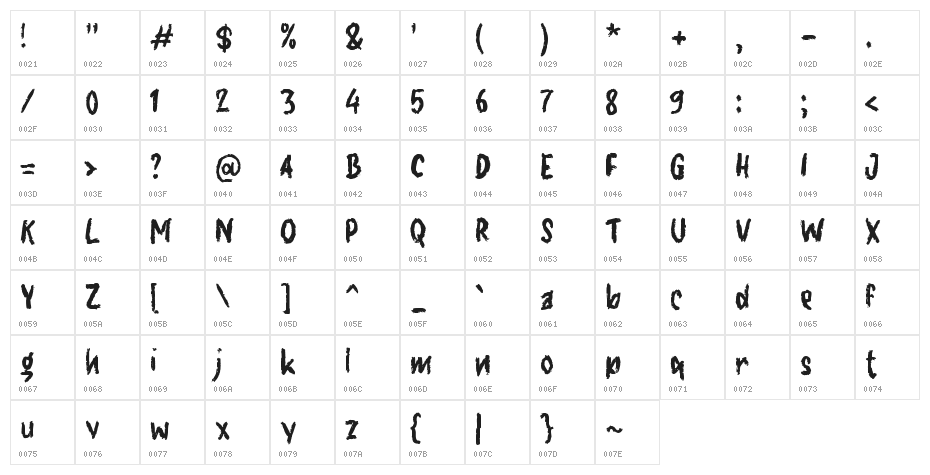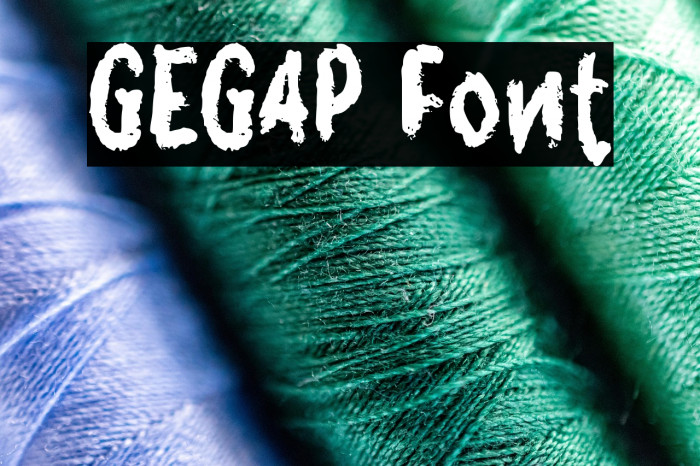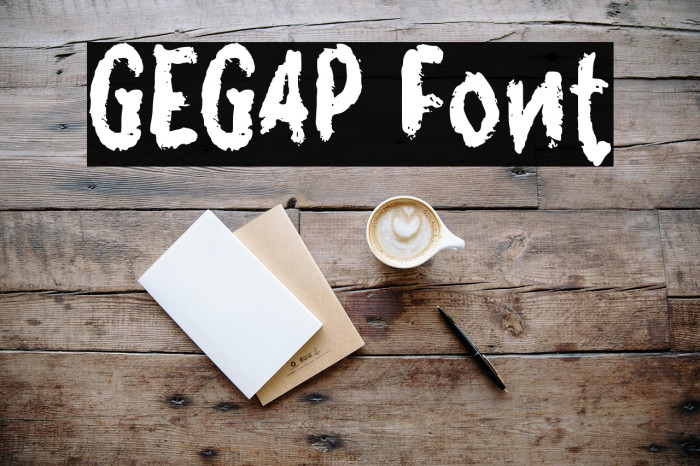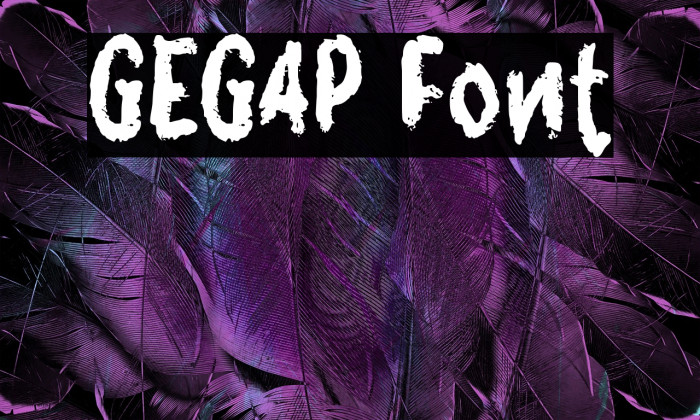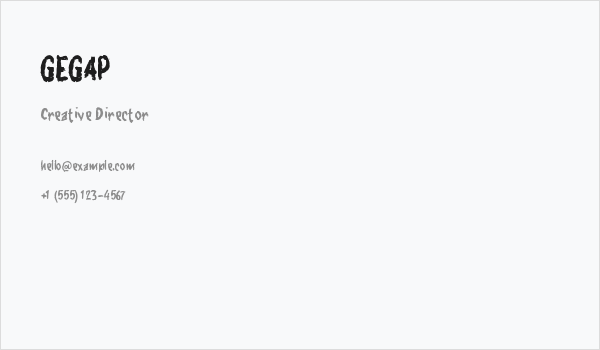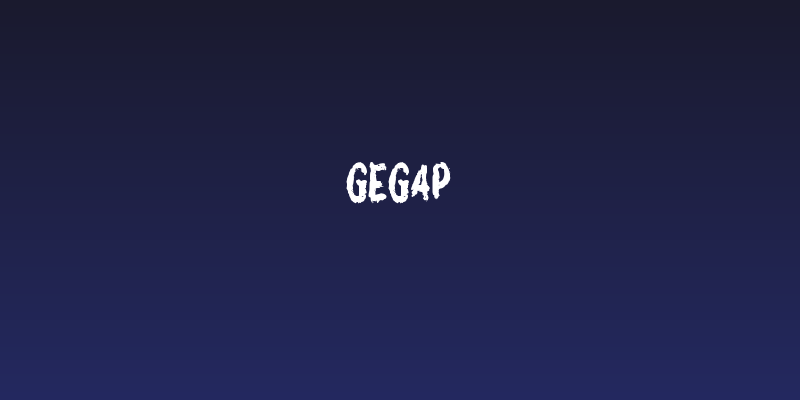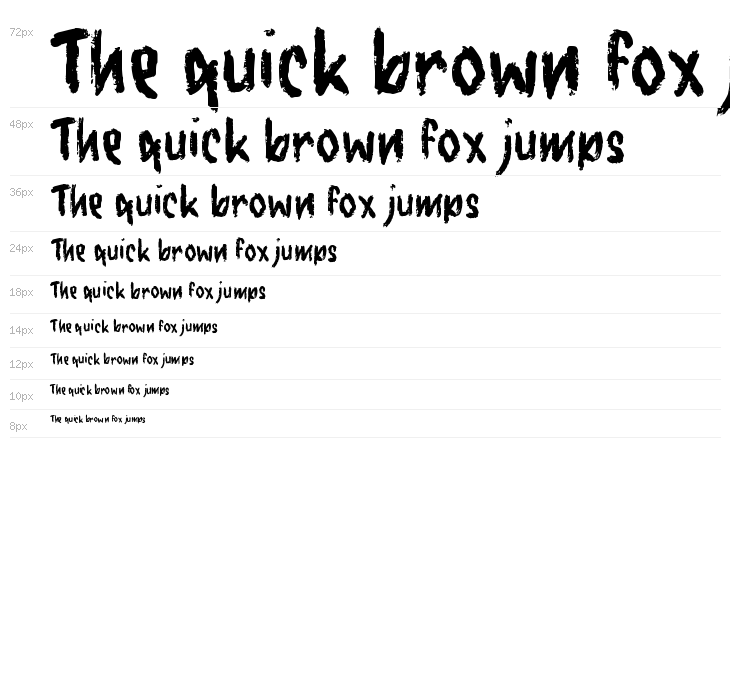
GEGAP Font
GEGAP Description
This font exhibits a bold and expressive style with a hand-painted appearance. The characters are irregular and dynamic, featuring rough edges and a textured look that suggests a brushstroke effect. The uppercase and lowercase letters maintain a consistent style, with a slightly condensed form that adds to the energetic feel. Numbers and special characters follow the same design, ensuring a cohesive appearance across all elements. The font's unique and artistic nature makes it stand out, offering a visually striking option for creative projects.
| Proposed Projects | Ideal for artistic projects, posters, album covers, branding, and any design requiring a bold, expressive touch. |